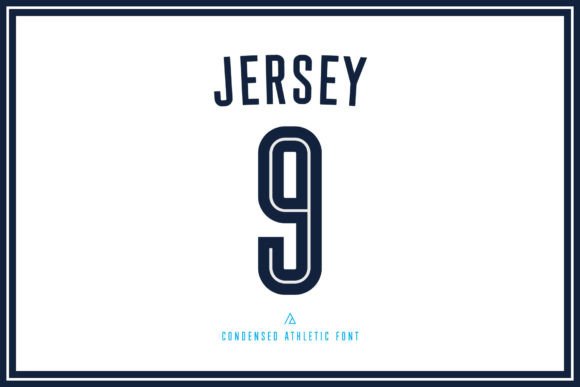
Introduction to Jersey Font
Have you ever been inspired by the vibrant colors and energetic vibes of a live sports game? For many designers, the excitement of a college football game or a professional soccer match can be a great source of creative fuel. It’s moments like these that sparked the creation of the Jersey Font, a dynamic and modern sans-serif typeface designed to evoke the spirit of sports jerseys.
As a valuable design resource, the Jersey Font is perfect for adding a pop of personality to your next creative project. With its high-quality outline and regular solid fill versions, you can easily add a touch of sports-inspired flair to your titles, headlines, and even social media graphics. Plus, with its transparent background and European language support, you can customize it to fit your needs.
Key Features of Jersey Font
Honest Review: Jersey Font
As a designer, I’m always on the lookout for high-quality design resources to enhance my creative projects. Recently, I stumbled upon the Jersey Font, and I’m excited to share my honest review.
- ✨ Clean and modern design aesthetic that’s perfect for sports-themed projects.
- ✨ High-quality font with a transparent background, making it easy to use in various design applications.
- ✨ Great for creating eye-catching titles and headings in your design.
- ⚠️ Limited character set, which may not be suitable for longer texts or articles.
- ⚠️ No bold or italic variations, which can limit its versatility in certain design contexts.
Overall, I think the Jersey Font is a solid addition to any designer’s toolkit. While it has its limitations, its clean design and high-quality feel make it a great choice for sports-themed projects or any creative project that requires a modern, energetic vibe.
Tips for Getting the Most Out of Jersey Font
To get the most out of the Jersey Font, experiment with different font sizes, colors, and styles. Use the font in combination with other design elements to create a unique and eye-catching design. Don’t be afraid to push the boundaries and try new things!
The Jersey Font is perfect for a variety of creative projects, including wedding invitations, business cards, and social media graphics. Its high-quality design and transparent background make it a versatile and adaptable font that can be used in a range of different contexts.